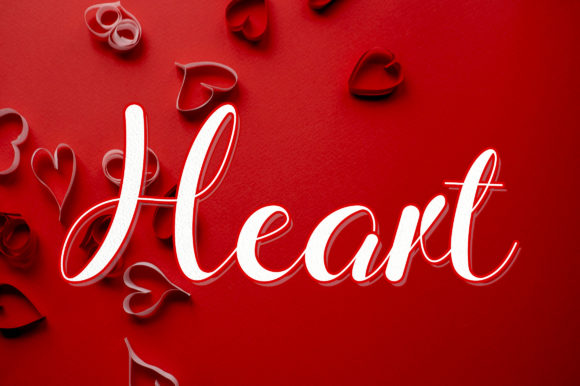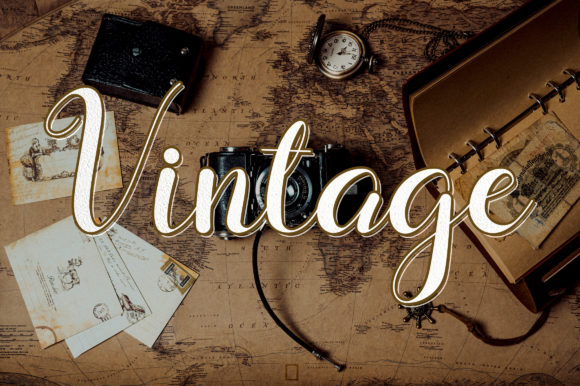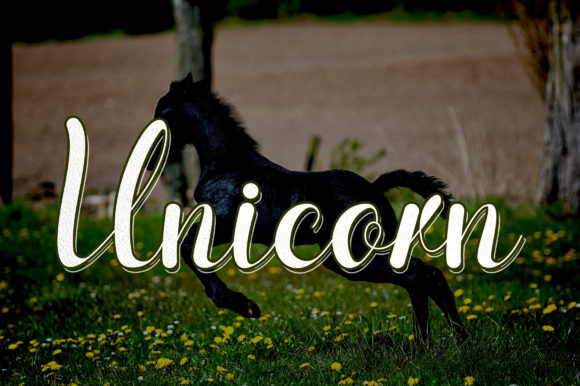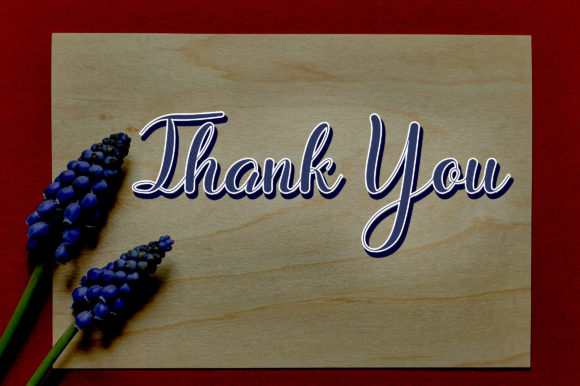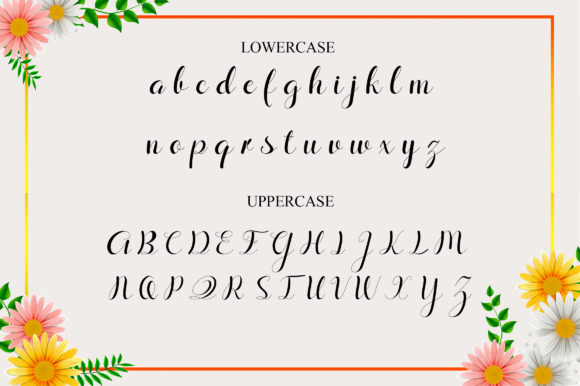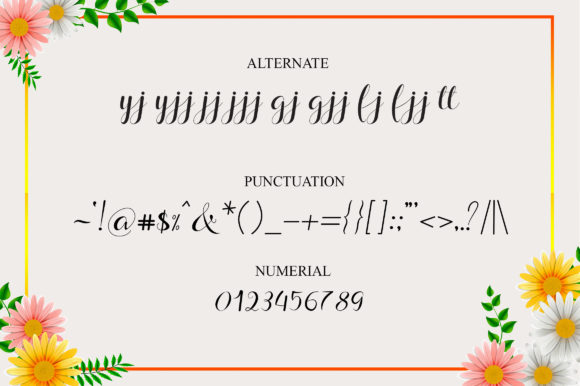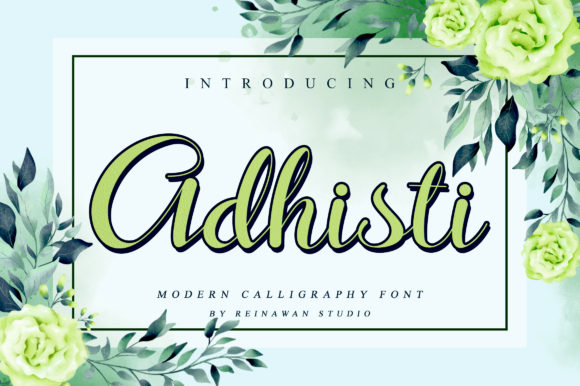
Introducing Adhisti Font: Elevate Your Designs with High-Quality Typography
In the world of design, typography plays a crucial role in conveying messages, evoking emotions, and creating lasting impressions. For designers, crafters, and businesses, finding the perfect font can be a daunting task. That’s where Adhisti Font comes in – a premium typeface designed specifically for packaging products, mockups, invitation cards, thanksgiving, and all aspects that require high-quality fonts.
What is Adhisti Font?
Adhisti Font is a carefully crafted typeface that boasts a unique blend of elegance, sophistication, and versatility. Its design is rooted in the principles of typography, with a focus on creating a font that is both aesthetically pleasing and highly legible. Whether you’re working on a luxury brand’s packaging, a wedding invitation, or a social media graphic, Adhisti Font is the perfect choice.
Key Features of Adhisti Font
- High-Quality Design: Adhisti Font is designed with precision and attention to detail, ensuring that every letterform, curve, and line is meticulously crafted to perfection.
- Versatility: This font is incredibly versatile, making it suitable for a wide range of applications, from packaging and mockups to invitation cards and digital graphics.
- Elegance and Sophistication: Adhisti Font exudes elegance and sophistication, making it perfect for luxury brands, high-end products, and special occasions.
- Legibility: Despite its ornate design, Adhisti Font remains highly legible, ensuring that your message is conveyed clearly and effectively.
Use Cases for Adhisti Font
Adhisti Font is an incredibly versatile typeface that can be used in a variety of contexts. Here are some of the most popular use cases:
- Packaging Design: Adhisti Font is perfect for luxury brands, product packaging, and label design.
- Mockups: Use Adhisti Font to create stunning mockups for your products, services, or brand.
- Invitation Cards: Make your invitations stand out with Adhisti Font’s elegant and sophisticated design.
- Thanksgiving and Holiday Cards: Add a touch of luxury and sophistication to your holiday cards and greetings.
- Digital Graphics: Adhisti Font is also suitable for digital graphics, such as social media posts, blog headers, and website titles.
Why Choose Adhisti Font?
With so many fonts available, why choose Adhisti Font? Here are just a few reasons:
- Unique Design: Adhisti Font boasts a unique design that sets it apart from other fonts.
- High-Quality: This font is designed with precision and attention to detail, ensuring that it meets the highest standards of typography.
- Versatility: Adhisti Font can be used in a wide range of applications, making it a valuable addition to any designer’s toolkit.
In conclusion, Adhisti Font is a premium typeface that is perfect for designers, crafters, and businesses looking for high-quality typography. Its unique design, versatility, and elegance make it an excellent choice for a wide range of applications. Whether you’re working on packaging design, mockups, invitation cards, or digital graphics, Adhisti Font is sure to elevate your designs and leave a lasting impression.